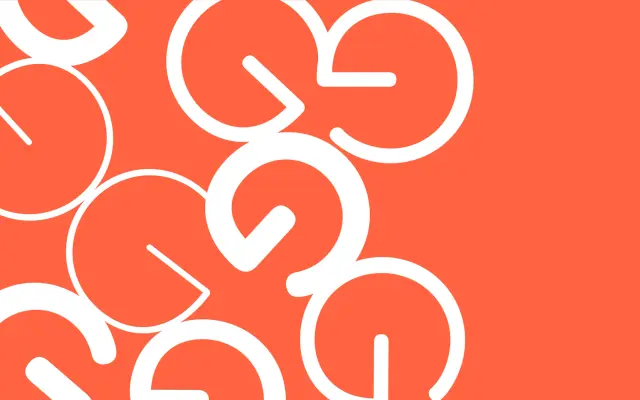
F37 Ginger Rounded
F37 Foundry · Rick Banks, Shaqa Bovand, Ryan Williamson · 2013
A rounded cut of F37 Ginger, keeping the near-circular geometry and softening terminals for friendlier logos and headlines.
A rounded geometric sans by Rick Banks, Shaqa Bovand and Ryan Williamson, the rounded counterpart to F37 Ginger. Twelve styles run across six weights from Thin to Black with matching italics, holding the near-circular counters and Futura plus Avant Garde Gothic DNA but with terminals rounded for a warmer voice. Through the wider Ginger system, it talks to Soft, Mono, Cyrillic, Greek and Arabic siblings, and is built for logos, headlines and packaging where you want geometry with a smile.
F37 classifies Ginger Rounded as a rounded cut of the F37 Ginger system, keeping the geometric shapes and near-circular counters and softening the terminals. The wider Ginger family supports 252+ languages across Latin Extended, Cyrillic, Greek and Arabic.